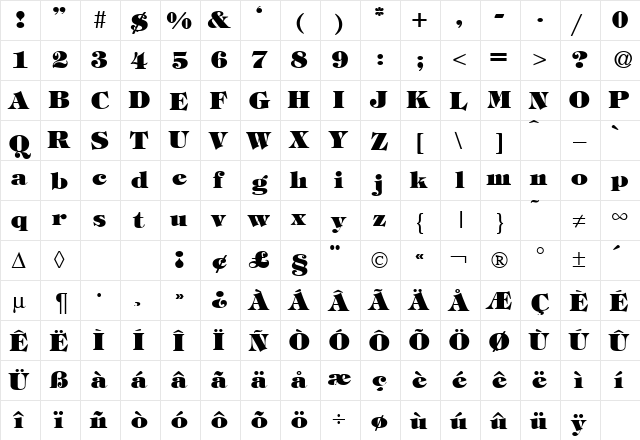
TiffanyTwoHeavy DB Regular Font Preview
TiffanyTwoHeavy DB Regular
TiffanyTwoHeavy DB Regular Font Details
Design Context for TiffanyTwoHeavy DB Typeface
TiffanyTwoHeavy DB is a composed and adaptable typeface that performs quietly and consistently across a wide range of design contexts.